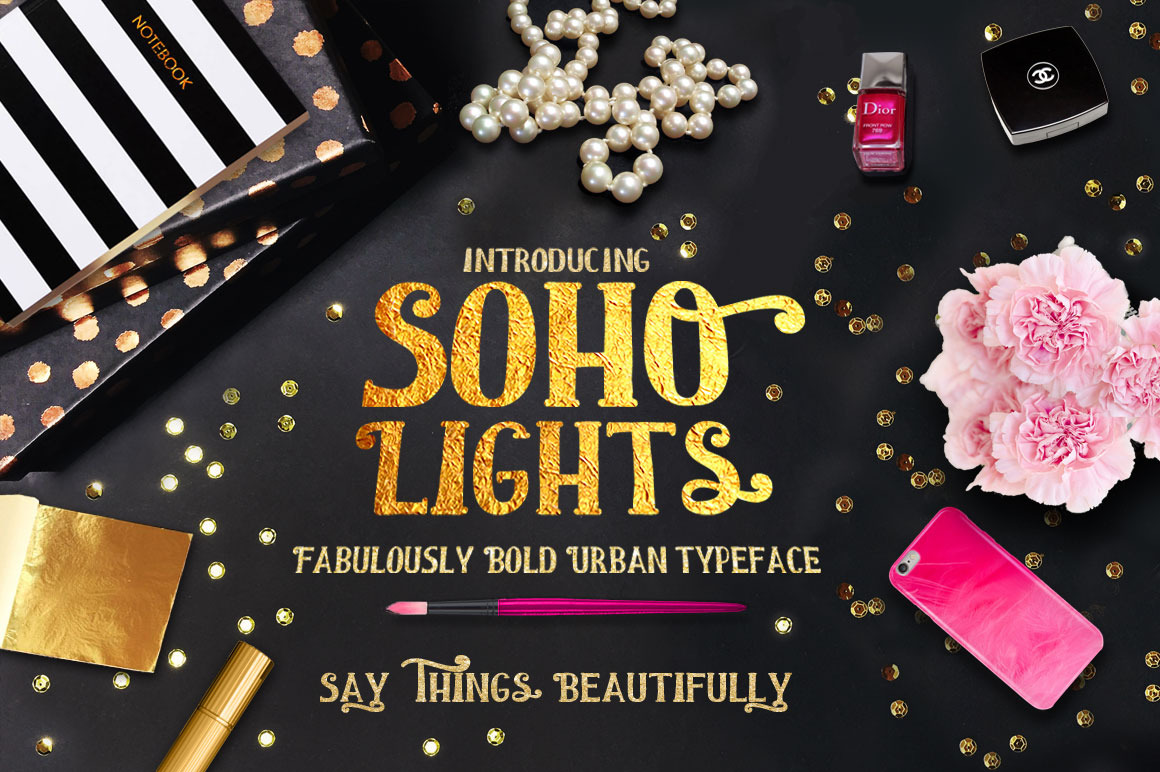
Soho Lights, City Slick Typeface
ACCESS TO GLYPHS PANEL ALLOWS YOU TO CHOOSE AMONG 4 GLYPH STYLES
Say things beautifully with Soho Lights, fabulously urban typeface.
The broad hand drawn glyphs with bold swishes and swirls give your work the hand lettered feel of city slick boutiques, and ample space to play with textures and colors. For starters, use my gold leaf and watercolor included in the pack and try Soho Lights with digital patterns and styles in your library for the freshest, juiciest words of wisdom.
Soho Lights typeface combines wide freehand strokes with swirly curves into unique font that is both playful, stylish and legible - perfect for posters, inspirational quotes and promos, as well as for marketing your products with style across the widest audience.
A clever typeface, Soho Lights adjusts while you are typing - no special settings required. Type in all lowercase for your basic font, type in all uppercase to have Soho Lights add all the decorative features, or press shift key when you want a decorative glyph at the start or an end of a word. That's it - the city slick typeface does all the thinking on its own!
Glyphs panel would be useful to see all available options and choose each glyph among the 4 styles, but it is not necessary - Soho Lights lets you intuitevely change the glyphs as you type, with ease.